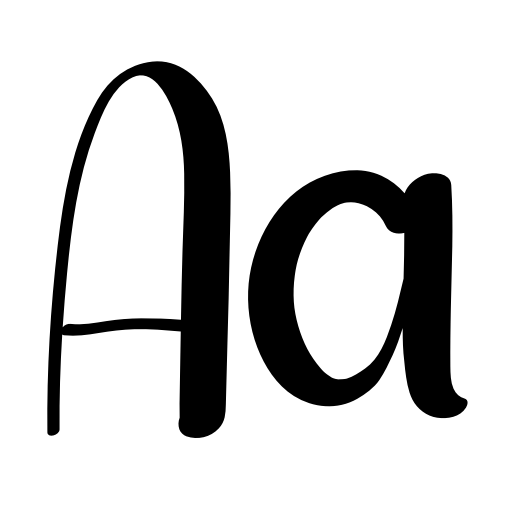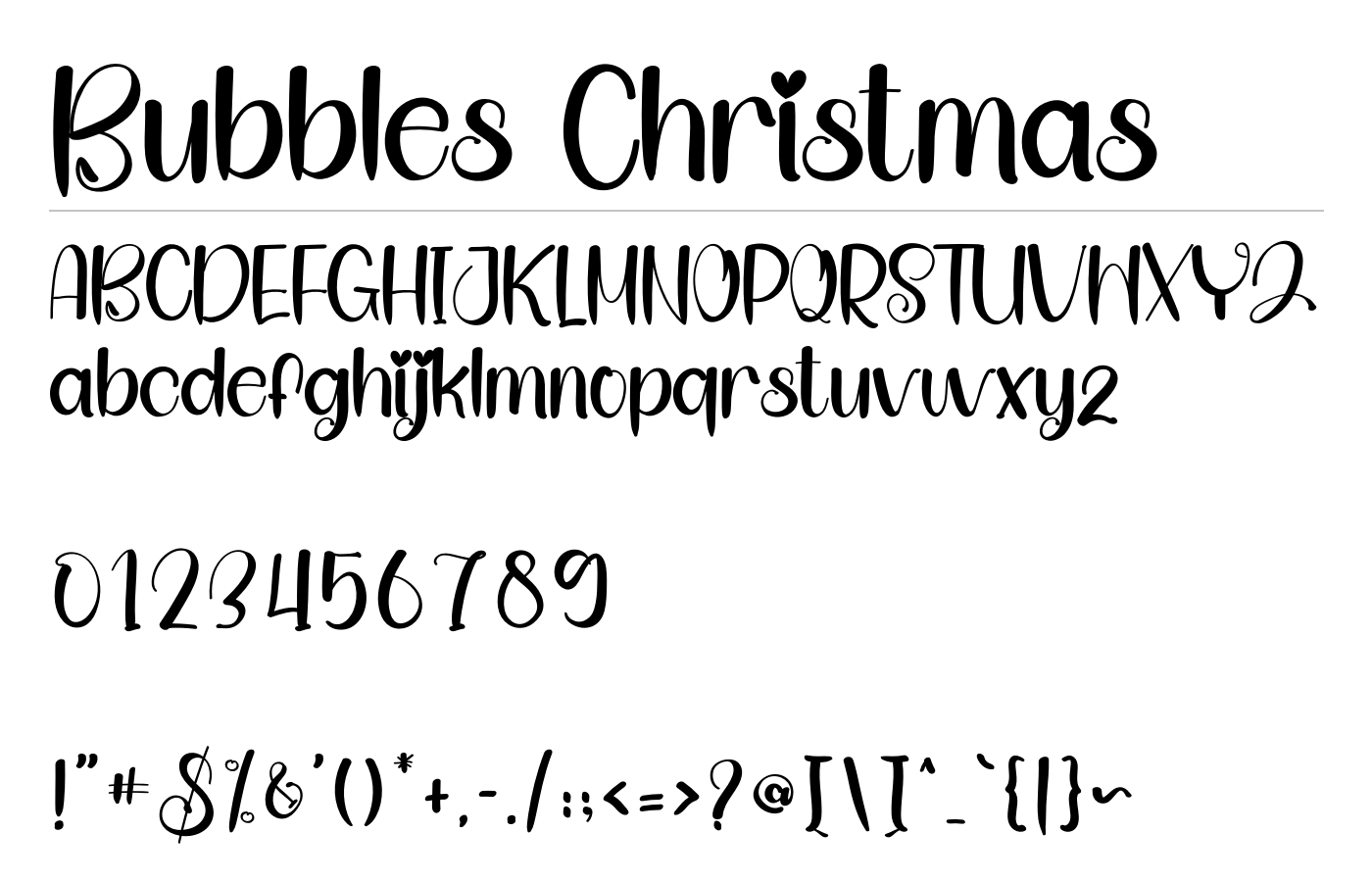
Bubbles Christmas is a playful, handwritten-style font with a lively and whimsical personality, featuring rounded, bubbly letterforms and charming details like heart-shaped dots. Its light to regular weight and tall, narrow proportions give it an airy, inviting feel, making it perfect for festive designs, holiday greetings, and whimsical branding. This font shines in headlines, invitations, and packaging where a fun, joyful, and approachable mood is desired.
Bubbles Christmas Font
About Bubbles Christmas Font